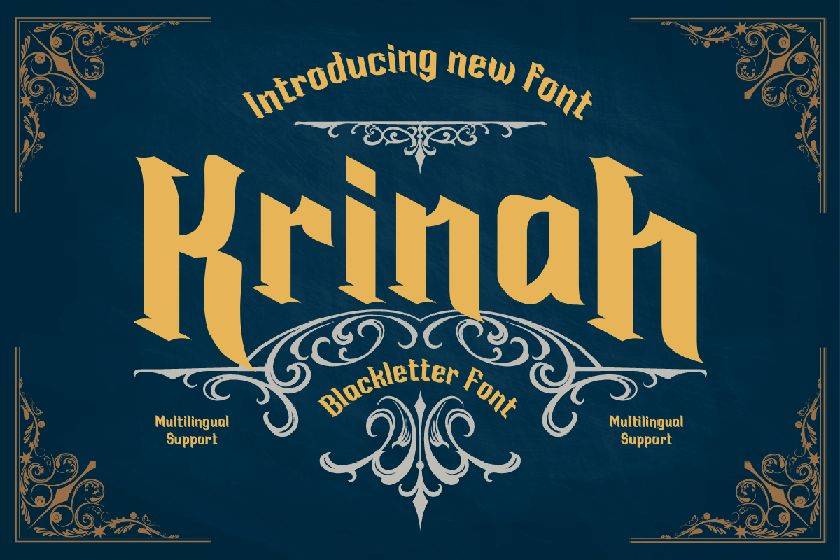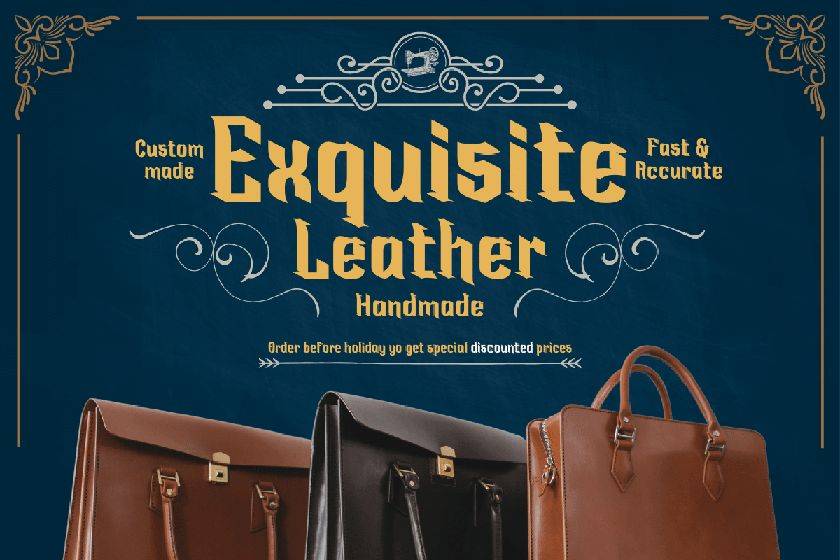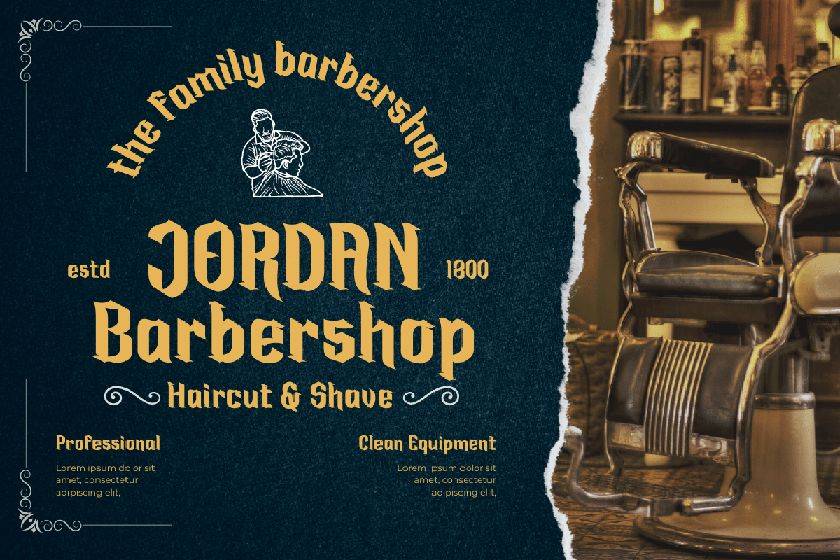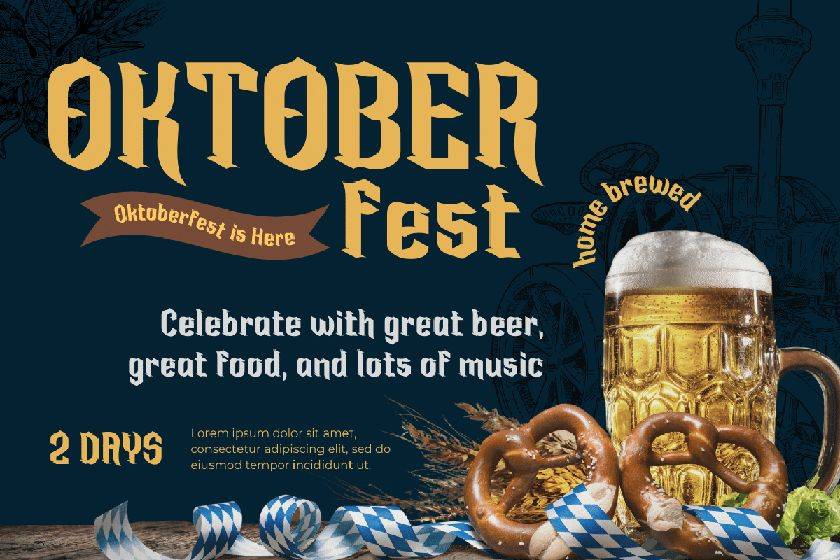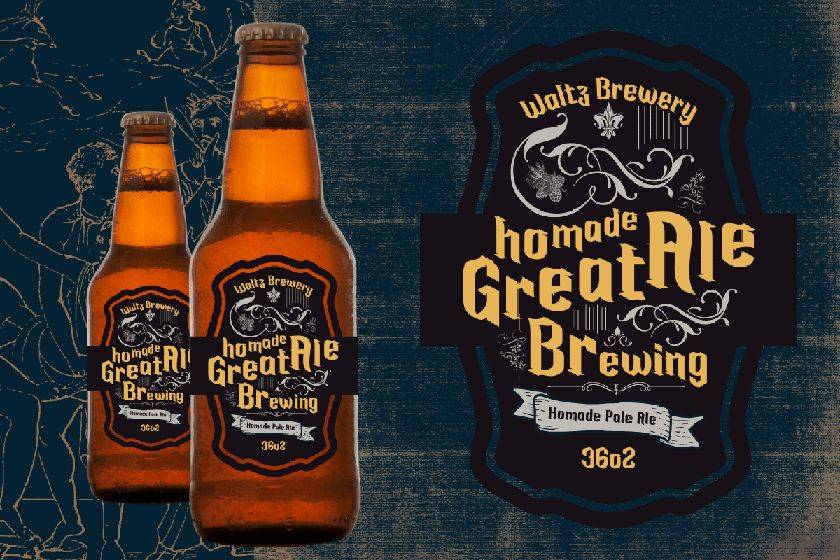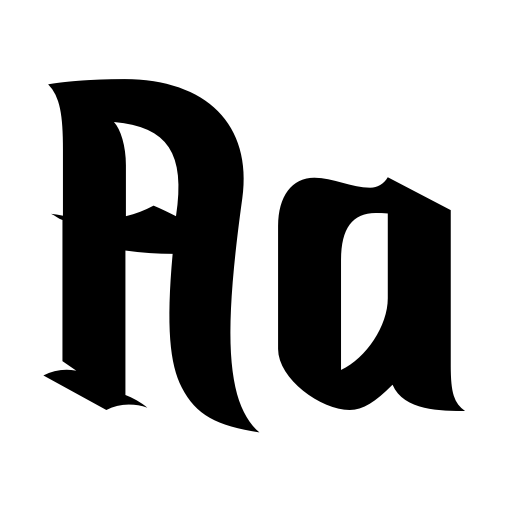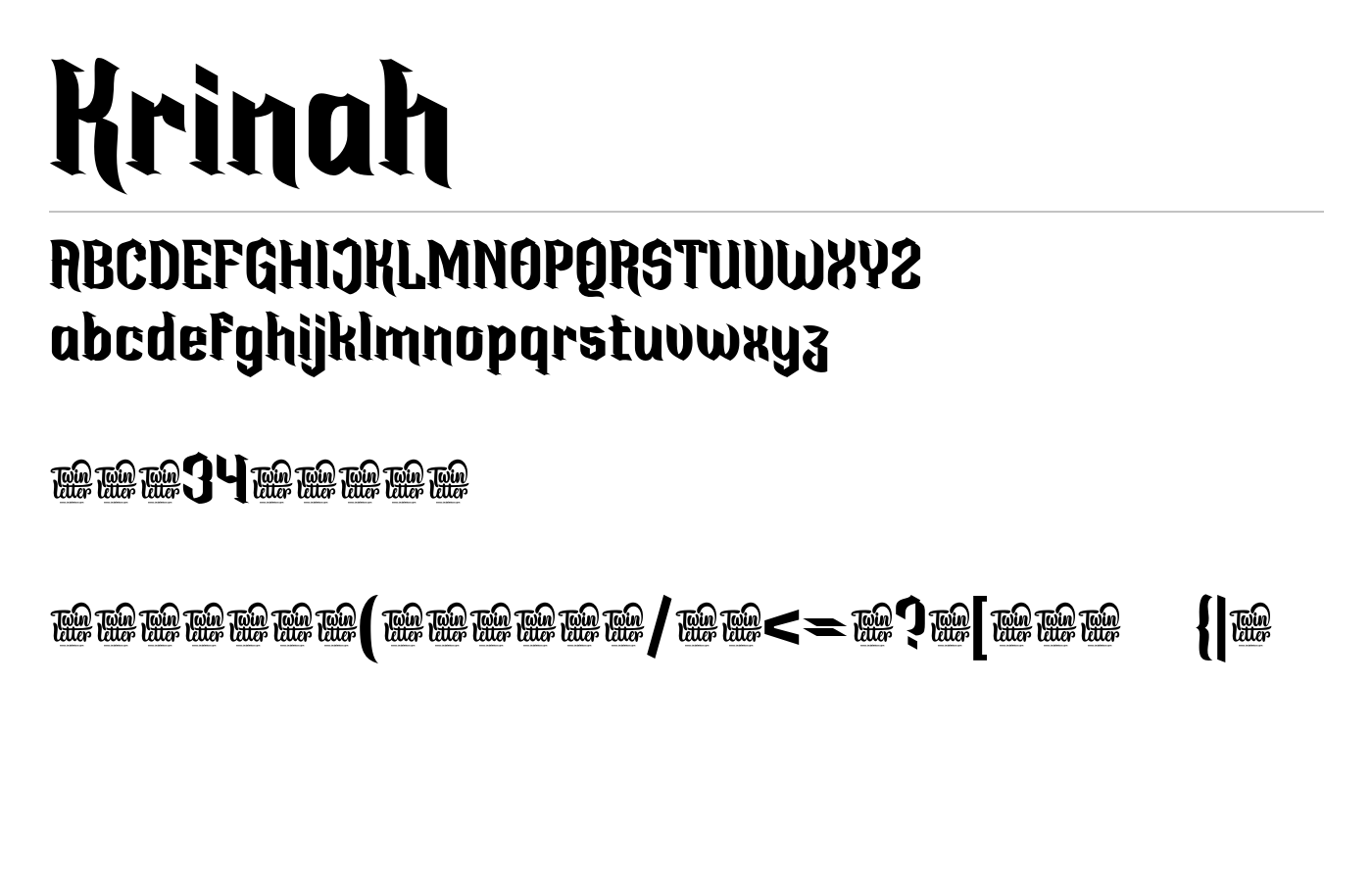
Krinah is a bold, blackletter-inspired serif font with strong vertical strokes and sharp, angular details that give it an old-world, gothic character. It balances a heavy weight with a condensed width and features distinct letterforms that evoke a sense of tradition and authority, making it ideal for vintage branding, headings, and decorative uses where a dramatic, historical touch is desired. This font works best in logos, posters, or editorial headlines where its unique style can stand out and convey a bold, classic personality.
Krinah Font
About Krinah Font